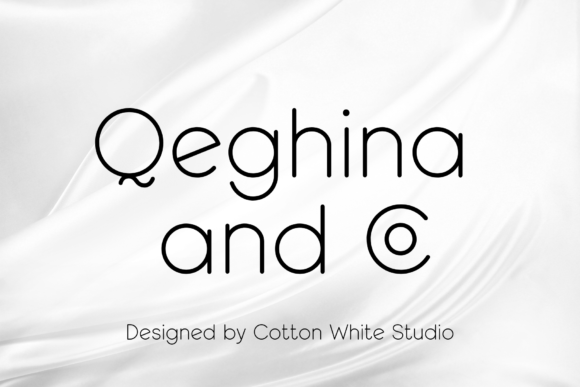
Qeghina and Co is an exclusive and distinctive sans-serif font that commands attention with its bold yet elegant appearance. Its modern and clean lines elevate any design, from logos to headlines, and its intricate details set it apart from ordinary sans-serif fonts. A must-have for designers looking to make a statement.